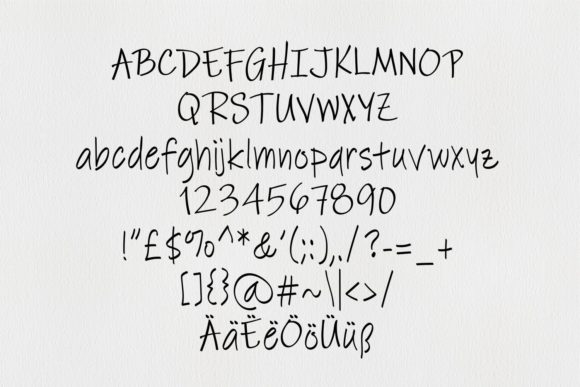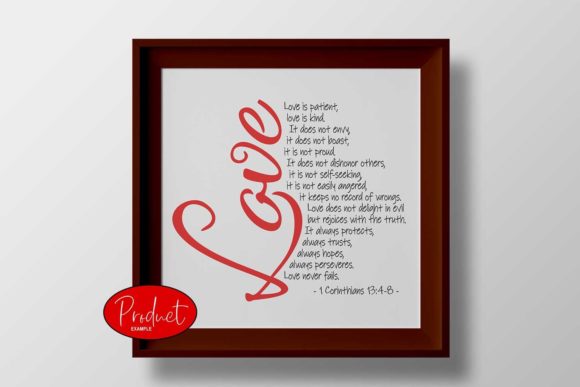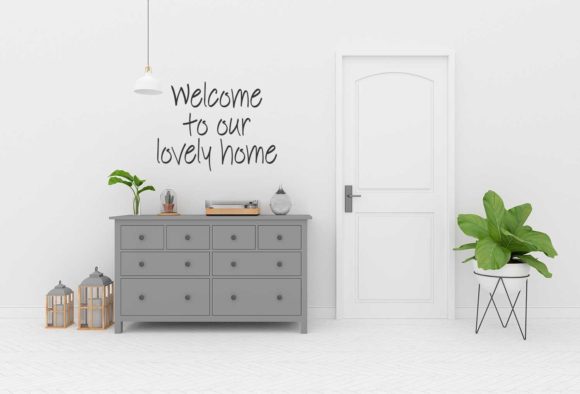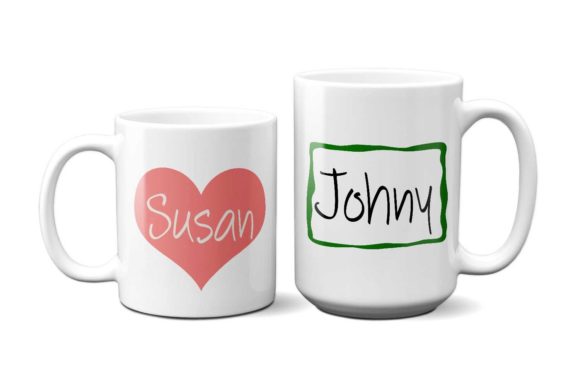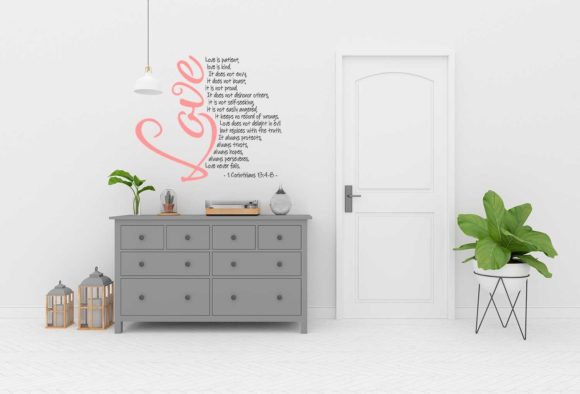
Pestra Font – Free Download
Introduction to Pestra Font
Pestra is a lovely and timeless handwritten font.
Key Features of Pestra Font
Why Choose Pestra Font?
Pestra Font offers exceptional quality and versatility, making it a valuable addition to your design toolkit. Whether you’re creating for personal projects or commercial use, Pestra Font delivers professional results.